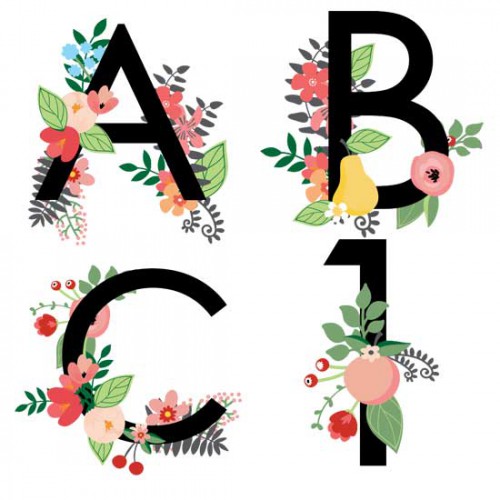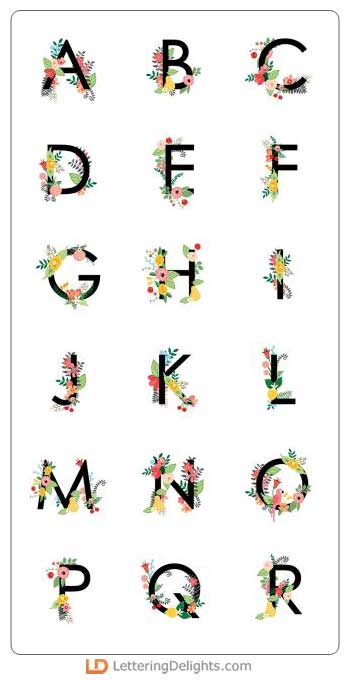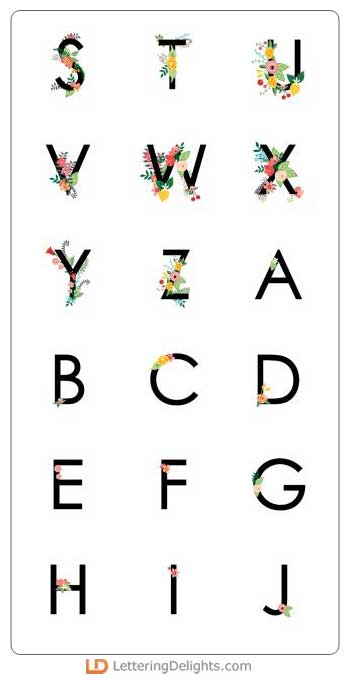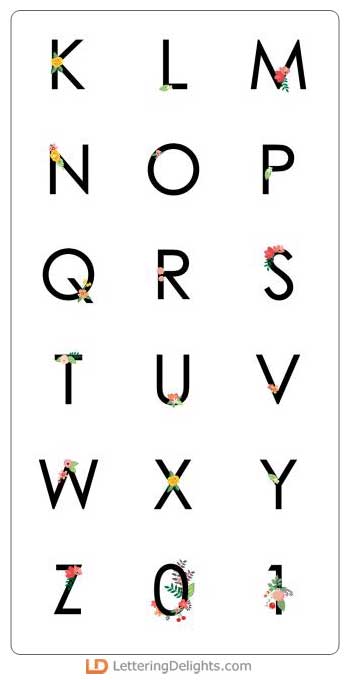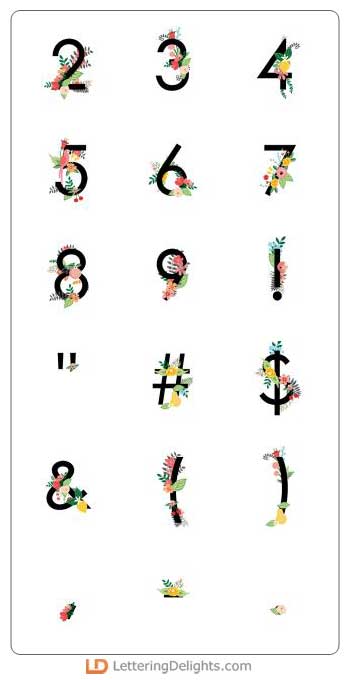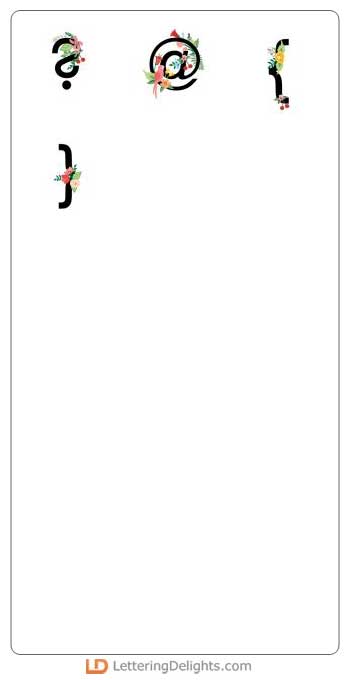
Pretty Posies is a beautiful floral alphabet that features pink and red posies, yellow roses, and beautifully designed fruit to accent the florals. Use Pretty Posies in your card making, decor, scrapbooking, and crafts for friends!. Set includes upper and lower case alphabet, numbers, and several other characters with floral accents.